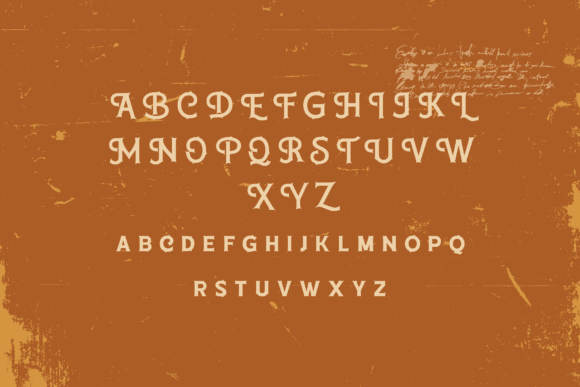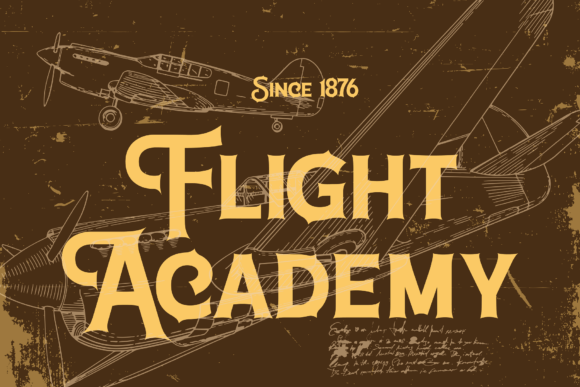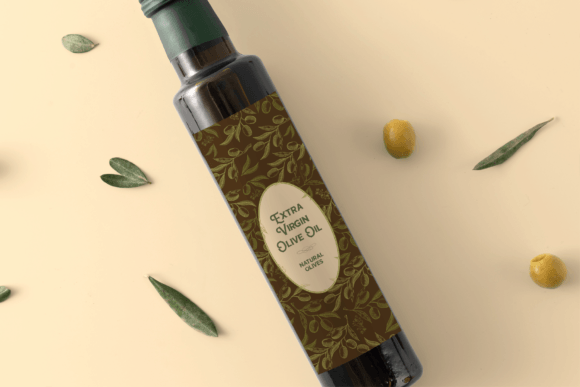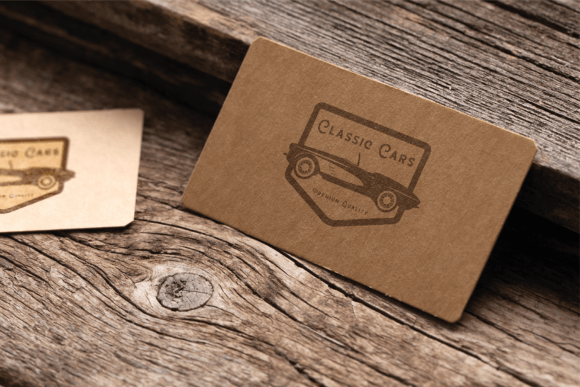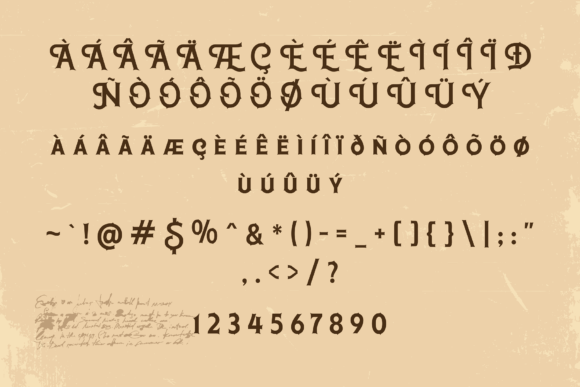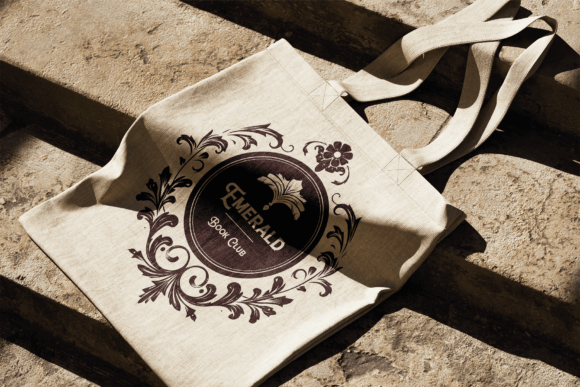
Introduction to Roseblade Font
Step back in time and add a touch of elegance to your designs with Roseblade, the vintage typeface inspired by the delicate beauty and subtle danger of a rose.
Each letter in Roseblade features intricate, thorn-like details, evoking the timeless allure of antique typography with a modern twist Roseblade is perfect for those looking to infuse their projects with a sense of history and sophistication.
Key Features of Roseblade Font
Why Choose Roseblade Font?
Roseblade Font offers exceptional quality and versatility, making it a valuable addition to your design toolkit. Whether you’re creating for personal projects or commercial use, Roseblade Font delivers professional results.